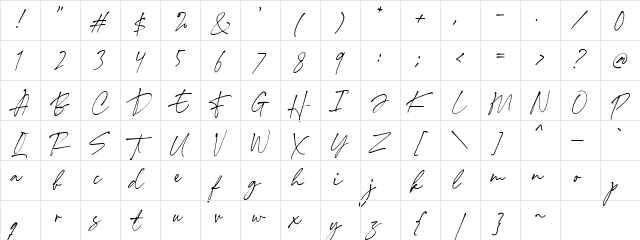
Annette Bradford DEMO Regular
| Foundry | Letterhend Studio |
| Designer | Sarid Ezra |
Design Context for Annette Bradford DEMO Typeface
Annette Bradford DEMO is a composed and adaptable typeface that performs quietly and consistently across a wide range of design contexts.